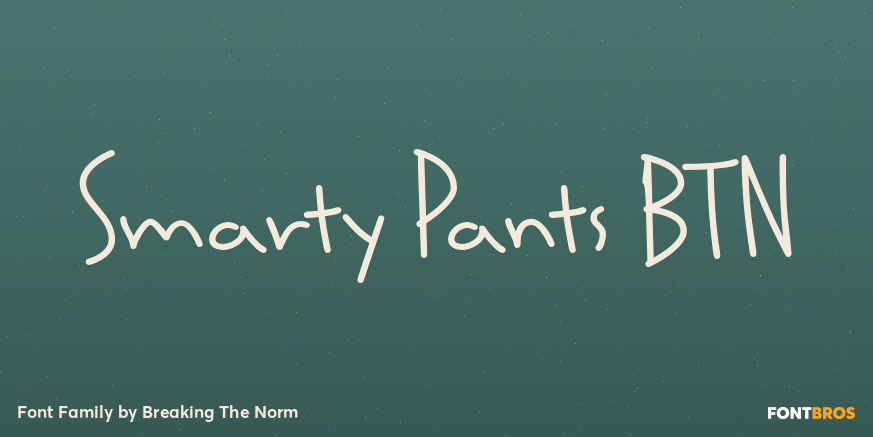
Smarty Pants BTN
Smarty Pants is a scrapper\’s dream. This playful typeface is ideal for journaling and lettering all your scrapbook layouts. With its relaxed and playful homemade look, this font is perfect on everything from recipe cards to gift tags.